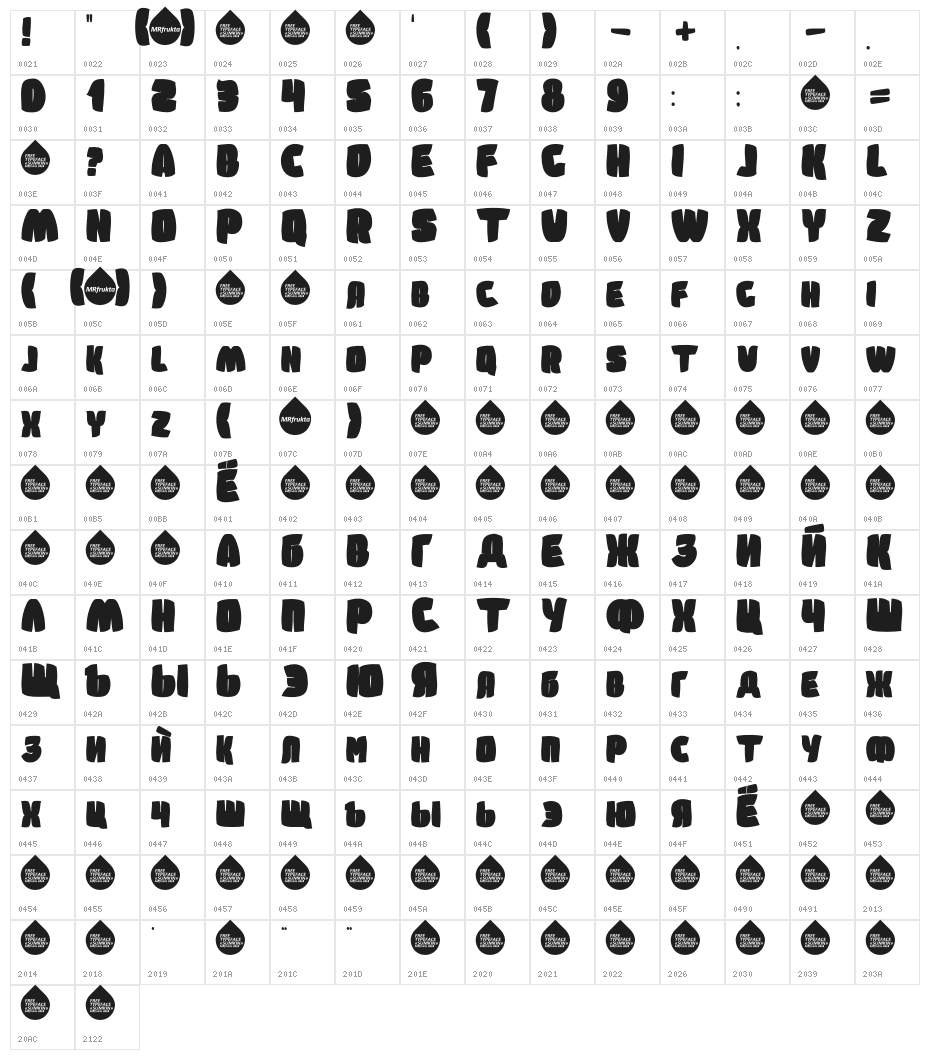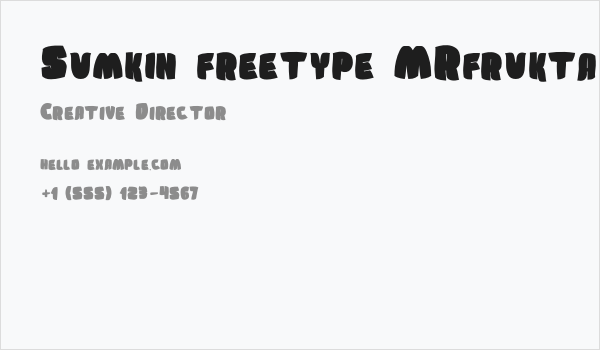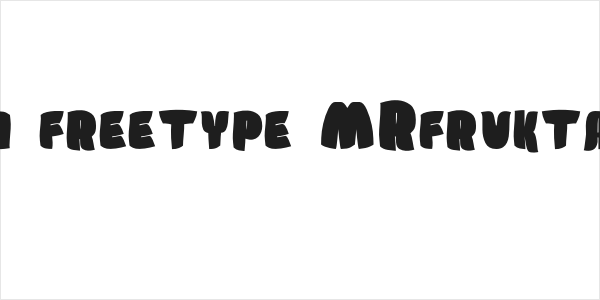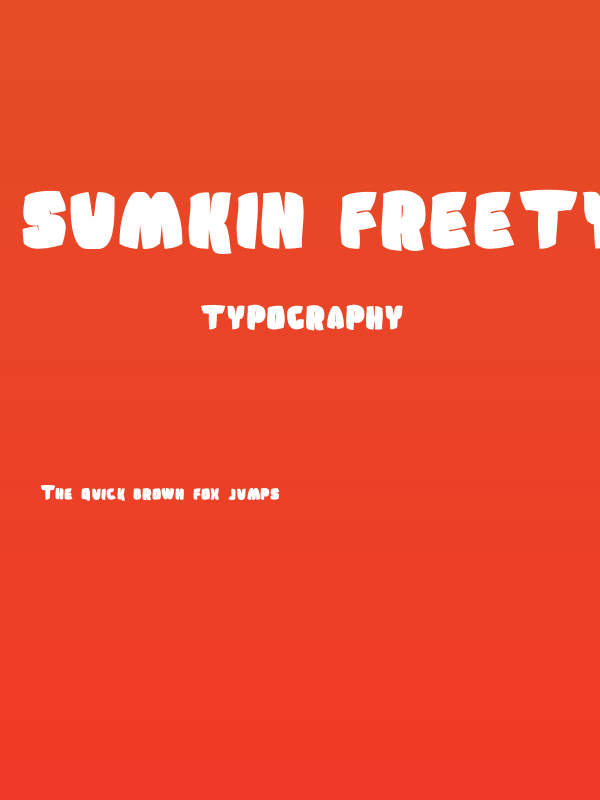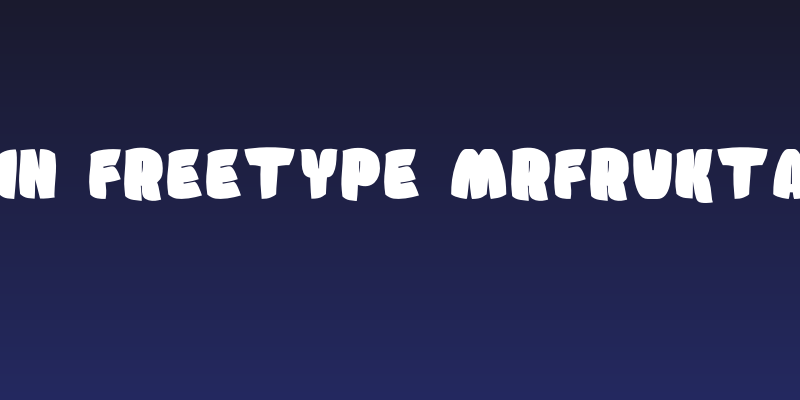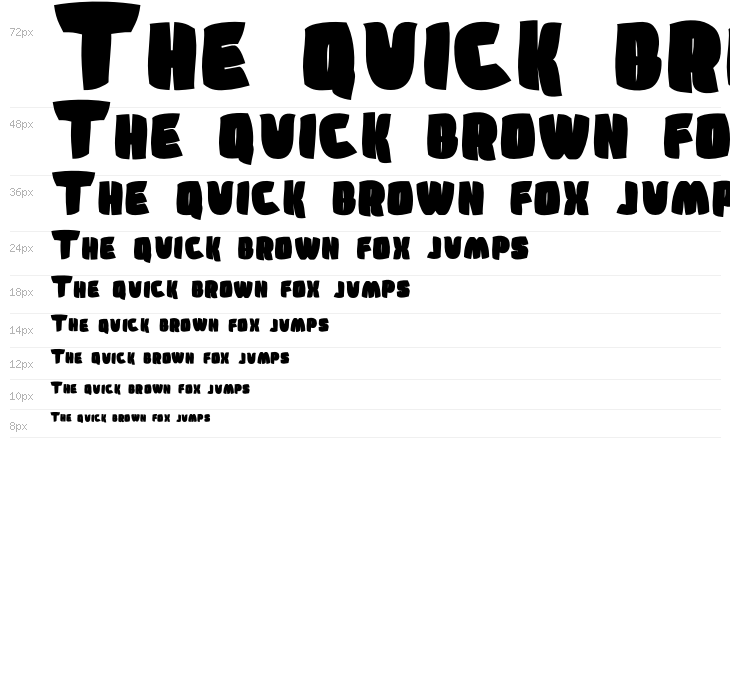
Sumkin freetype MRfrukta 2010 Font
Sumkin freetype MRfrukta 2010 Description
This font features bold, rounded characters with a playful and chunky appearance. The letters are uniformly thick, giving them a strong presence on the page. The design is reminiscent of retro or vintage styles, with a modern twist that makes it suitable for contemporary use. The characters are slightly irregular, adding a handcrafted feel that enhances its unique charm. This font is ideal for projects that require a fun and eye-catching typeface, such as posters, logos, or children's book covers. Its boldness ensures readability while maintaining a distinct personality.
| Overall Style | Vintage, Modern |
| Proposed Projects | Ideal for posters, logos, children's book covers, and any project needing a fun, eye-catching typeface. |